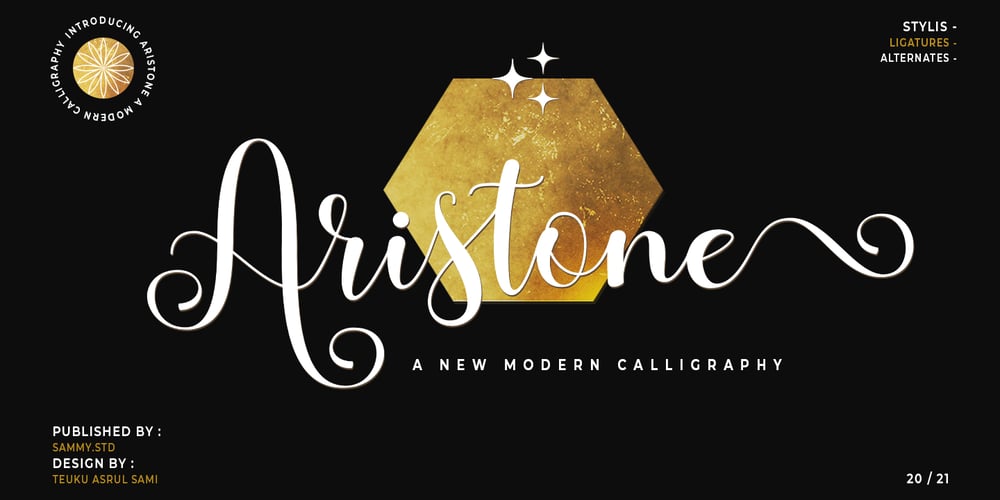
Aristone Script Font Family was designed by Teuku Asrul Sami and published by Assami Studio. Aristone Script contains 1 styles and family package options. INTRODUCINGAristone A modern CalligraphyAristone Script a fresh & modern new script with a handcrafted calligraphy style, decorative characters and dancing baseline! Very pretty for invitations such as greeting cards, branding materials, business cards, quotes, posters and more!!Aristone Script comes with 340+ glyphs. Alternative characters are divided into several Open Type features such as Swash, Stylistic Sets, Stylistic Alternate, Contextual Alternate. The Open Type feature can be accessed using Open Type savvy programs such as Adobe Illustrator, Adobe InDesign, Adobe Photoshop version of Corel Draw X, and Microsoft Word. And this Font has provided PUA unicode (custom coded font). so that all alternative characters can be easily accessed in full by a craftsman or designer.Aristone ScriptUppercase & Lowercase Letters International Languages & Symbols Support Punctuation & PUA Numbers Unicode Range Standard Alternative Style.These files include the following:Aristone Script.OTFIf you don’t have a program that supports OpenType features such as Adobe Illustrator and CorelDraw X Versions, you can access all the alternative glyphs using Font Book (Mac) or Character Map (Windows).Thank you,Sammy std